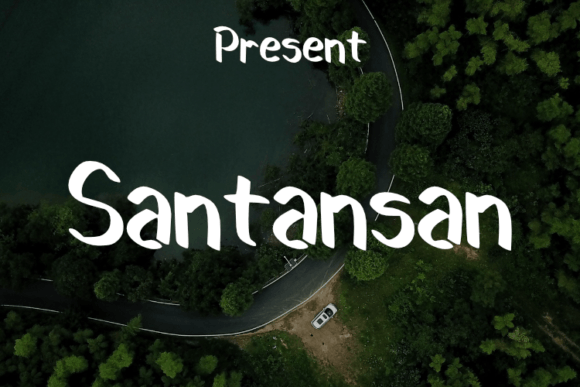
Step into the enchanting world of typography with Santansan Font, a script typeface that exudes sophistication and charm. Crafted by the talented Eric Kusuma, Santansan is more than just a font; it's an artistic expression that captivates the senses and leaves a lasting impression.
With its graceful curves and elegant lines, Santansan possesses a timeless allure that transcends trends. Its versatility makes it the perfect choice for a wide array of design projects, from stylish logos and eye-catching book covers to captivating movie titles. Dive into the world of design, where Santansan transforms ordinary words into captivating works of art.
Unleash your creativity and let Santansan elevate your designs to new heights. Its intricate details and purposeful imperfections add a touch of authenticity and character, ensuring that your creations stand out from the crowd. Embrace the beauty of typography and witness the transformative power of Santansan.
Santansan's versatility knows no bounds. It seamlessly blends with various design aesthetics, adding a touch of sophistication to fashion brands, magazines, and clothing lines. Its elegant curves bring a sense of luxury to logos and branding, leaving a lasting impression on your audience. Express yourself freely with fonts that resonate with your brand's personality and values.
Unlock the boundless possibilities of Santansan today and embark on a design journey that is both inspiring and rewarding. Let your imagination soar and witness the magic unfold as Santansan breathes life into your creative vision. Embrace the beauty of typography and transform your designs into captivating masterpieces.